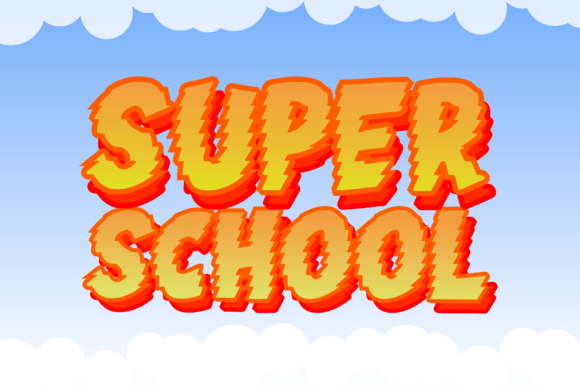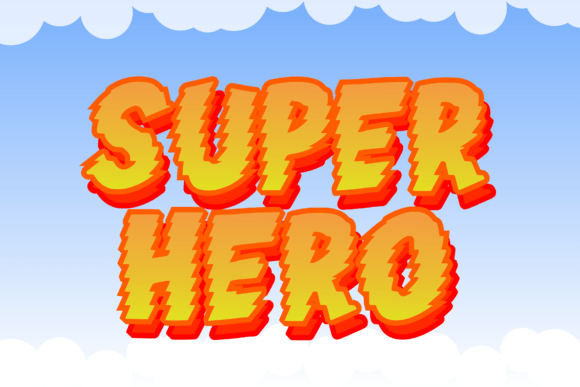
Unveiling Dragon School Font: A Whimsical World of Wonder
Have you ever been in the middle of a design project, and suddenly, it feels like something’s missing? You’re not alone! I recall working on a children’s birthday party invitation, determined to make it stand out, but struggling to find the perfect font. That’s when I stumbled upon Dragon School font, and it was love at first sight! 💫 In this article, we’ll dive into the world of Dragon School font, exploring its versatility, charm, and endless creative possibilities.
A Personal Encounter with Dragon School Font
As a designer, I’ve had my fair share of font hunting. But Dragon School font caught my attention like no other. Its bold yet gentle charm instantly elevated my design game. I was working on a children’s comic strip, and the font added a playful touch that kids and adults alike couldn’t resist. From that moment on, I knew I had to share this fantastic font with fellow designers, crafters, and creative hobbyists.
An Honest Review of Dragon School Font
So, what makes Dragon School font so special? Let’s dive into the good stuff and a few quirks I’ve discovered.
- ✨ Versatile charm: Dragon School font effortlessly adapts to various design projects, from children’s products to social media content.
- ✅ Elegant boldness: The font’s boldness adds a touch of sophistication to any design.
- 🎉 Whimsical appeal: Its playful nature makes it perfect for creative advertising and artwork.
- 📚 Excellent readability: The font remains clear and readable, even in smaller sizes.
- 🤔 Limited use in formal designs: Dragon School font might not be the best fit for formal or professional projects, as its playful nature might not align with the tone.
- ⚠️ Occasional kerning issues: As with any font, some kerning issues might arise, especially when using all-caps or large font sizes.
Although the actual designer behind Dragon School font remains a mystery, it’s easy to imagine the creative process that led to its development. Perhaps the designer, inspired by childhood memories of fantastical creatures and magical worlds, aimed to craft a font that would bring wonder to every creation. Whatever the inspiration, Dragon School font has undoubtedly captured the hearts of designers and crafters worldwide.
| Q: What type of projects is Dragon School font best suited for? | A: Dragon School font excels in children’s products, comic strips, social media content, and creative advertising. |
In conclusion, Dragon School font is an essential tool for designers, crafters, and creative hobbyists looking to add a touch of whimsy and wonder to their creations. Its versatility, charm, and elegant boldness make it perfect for a wide range of projects. So, go ahead, unleash your creativity, and let Dragon School font take your designs to new heights! 🚀
| Font Name | Dragon School Font |
| Author | anamalmusyaffaCreative |